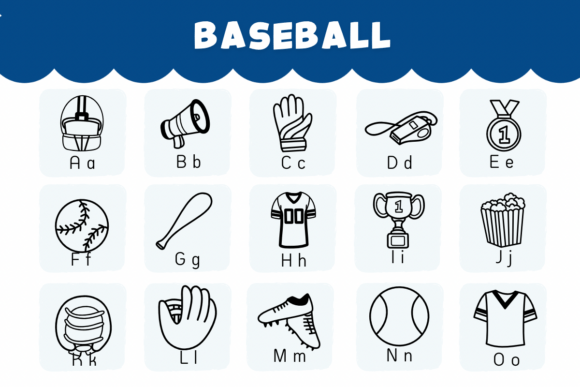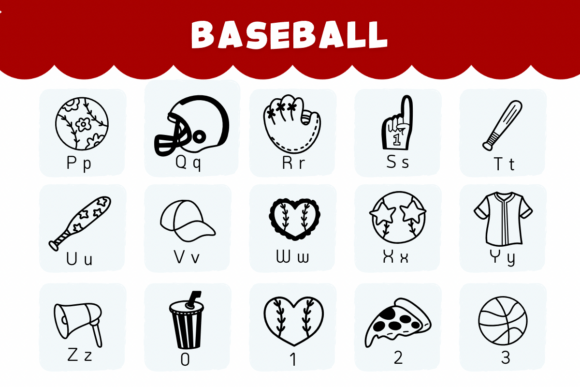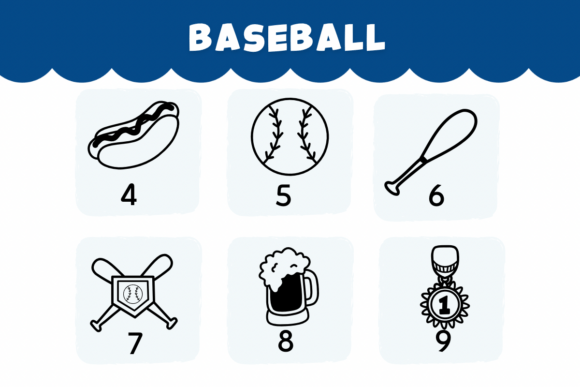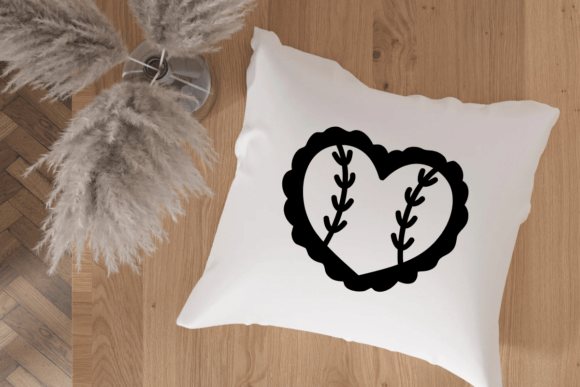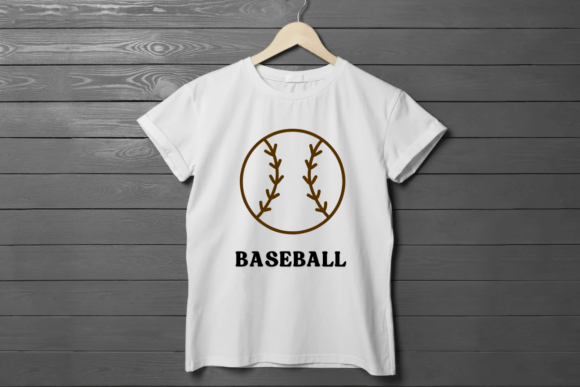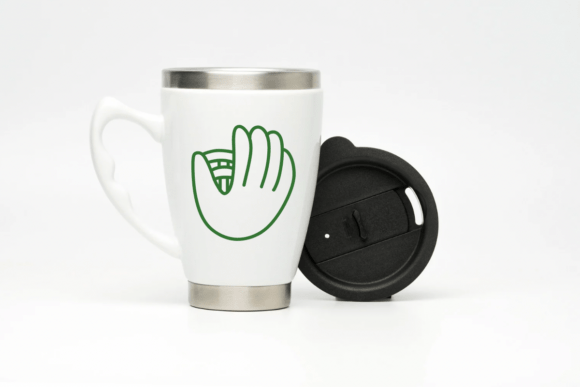
Step Up Your Design Game with Baseball Dingbats: The Ultimate Baseball Font
Are you a designer, crafter, or sports enthusiast looking for a fun and creative way to add a touch of baseball flair to your projects? Look no further than Baseball Dingbats, a sporty dingbat font that’s packed with baseball-themed illustrations. From bats and gloves to helmets and trophies, this font has everything you need to create engaging and eye-catching designs that are sure to score a home run.
What is Baseball Dingbats?
Baseball Dingbats is a unique and versatile font that features a wide range of baseball-themed illustrations. With this font, you can add a graphic element to your designs by simply typing a letter. The font includes a variety of illustrations, such as:
- Bats and balls
- Gloves and helmets
- Jerseys and trophies
- Megaphones and sports equipment
Perfect for Sports-Themed Designs
Baseball Dingbats is perfect for designers, crafters, and sports enthusiasts who want to create sports-themed designs that are fun, engaging, and professional-looking. Whether you’re creating posters, flyers, or social media graphics, this font has everything you need to add a touch of baseball flair to your designs.
The possibilities are endless with Baseball Dingbats. Here are just a few ideas to get you started:
- Game day invites: Create custom invitations for baseball games, tournaments, or parties.
- Team merch: Design custom t-shirts, hats, or water bottles for your favorite team or player.
- School projects: Add a touch of baseball flair to school projects, such as reports, presentations, or posters.
- Kids’ crafts: Use Baseball Dingbats to create fun and engaging crafts for kids, such as baseball-themed cards, pictures, or stories.
- Posters and flyers: Create eye-catching posters and flyers for baseball games, events, or promotions.
Why Choose Baseball Dingbats?
So why choose Baseball Dingbats over other fonts? Here are just a few reasons:
- Unique and versatile: Baseball Dingbats offers a wide range of baseball-themed illustrations that can be used in a variety of designs.
- Easy to use: Simply type a letter to add a graphic element to your designs.
- Fun and engaging: Baseball Dingbats adds a touch of fun and personality to your designs.
- Perfect for sports enthusiasts: If you’re a sports enthusiast, Baseball Dingbats is the perfect font for you.
Tips and Tricks for Using Baseball Dingbats
Here are a few tips and tricks for using Baseball Dingbats:
- Experiment with different letters and combinations to create unique designs.
- Use Baseball Dingbats in combination with other fonts to create a custom look.
Baseball Dingbats is a fun and sporty dingbat font that’s perfect for designers, crafters, and sports enthusiasts. With its wide range of baseball-themed illustrations, ease of use, and versatility, this font is sure to become a favorite in your design arsenal. So why wait? Download Baseball Dingbats today and start creating engaging and eye-catching designs that are sure to score a home run!